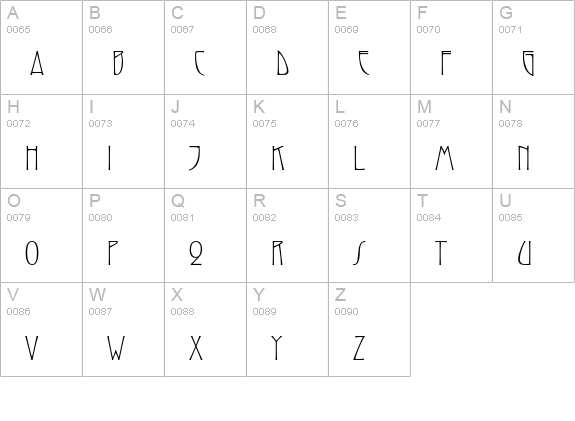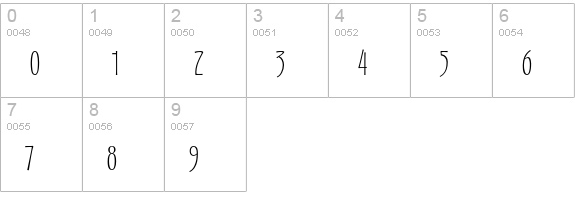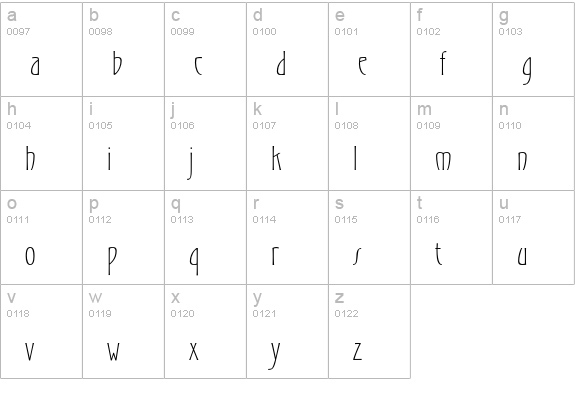
Gradl Font Details
Introducing Gradl font - a modern and sleek typeface that is perfect for adding a touch of elegance to your projects. With its clean lines and sophisticated style, Gradl font is sure to make a statement. This versatile font is ideal for a wide range of design projects, from branding to editorial layouts. The best part? Gradl font is completely free to download at FontsMarket.com. That's right, you can access this stunning font at no cost and use it in your personal and commercial projects without any restrictions. Whether you're working on a website, poster, or logo design, Gradl font is a fantastic choice that will elevate your work to the next level. Don't miss out on this incredible opportunity to enhance your designs with the beautiful Gradl font. Download it today and see the difference it can make in your creative projects.